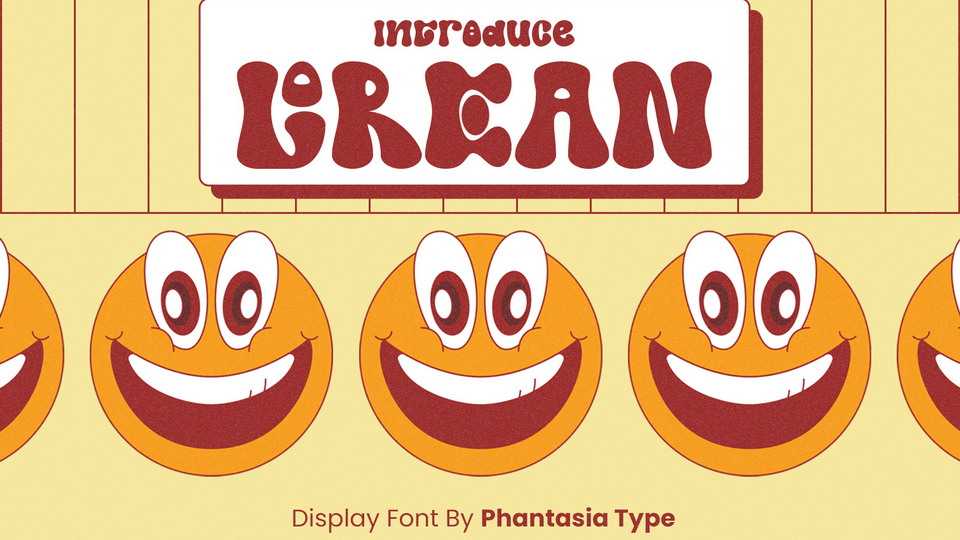
Download Lorean font, a groovy retro-90s themed display typeface. Lorean is perfect for old-school, vintage, funny, and festive design style.
Designer: Phantasia Type